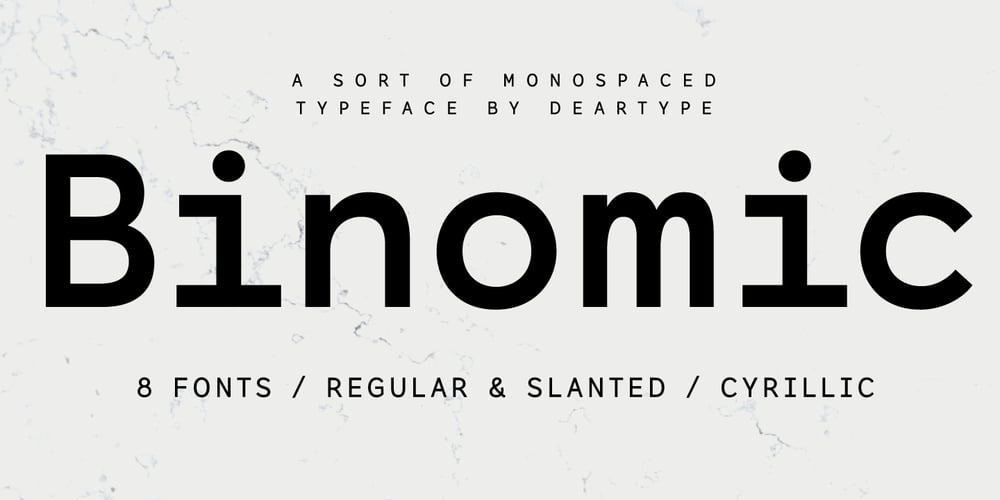
Binomic Font Family was designed by Veneta Rangelova and published by DearType. Binomic contains 8 styles and family package options. Binomic is a sort of monospaced font family. “Sort of” because it was not designed with the sole purpose of being used as a coding font, but rather as a nice alternative to monospaced fonts in graphic design projects. It’s a friendly mix between your average fixed-width font and a more geometric, wider sans, thus more of a display font than a text one. The Binomic family has both upright and slanted versions, each in four convenient weights. The family is equipped with 480+ glyphs, has Latin Extended and Cyrillic support (both Russian and Bulgarian), oldstyle figures, as well as a set of cute technical characters, alternates and symbols. The Binomic family is clean, amiable and really versatile, so it will fit most design applications – from greeting cards, menus, merchandise, book covers and packaging materials to websites and apps. It is legible and modern, kind of sleek but without any pretensions.